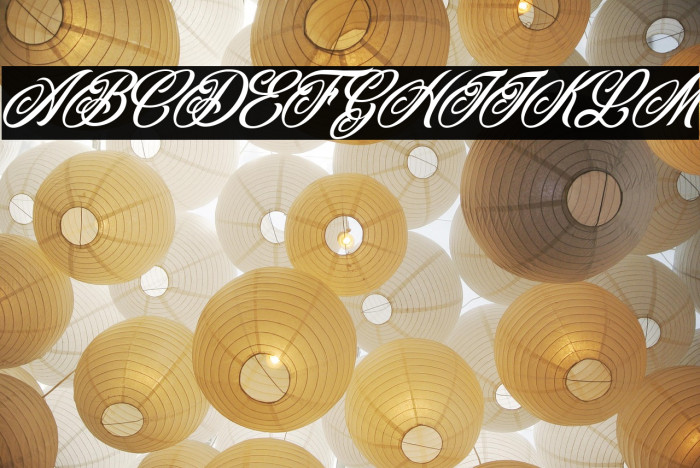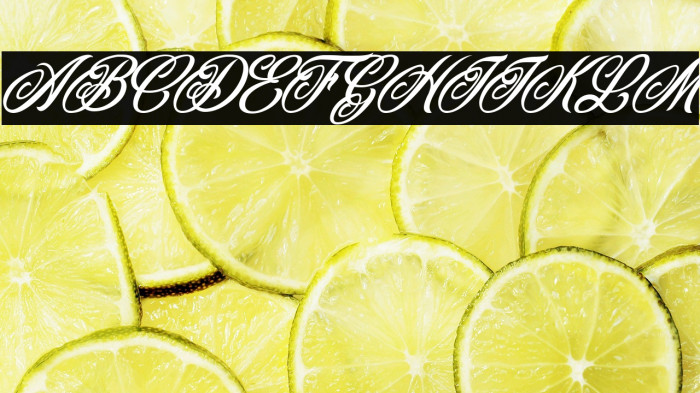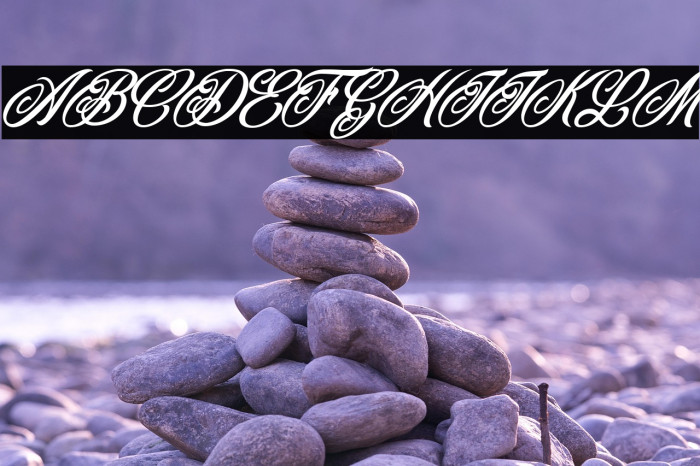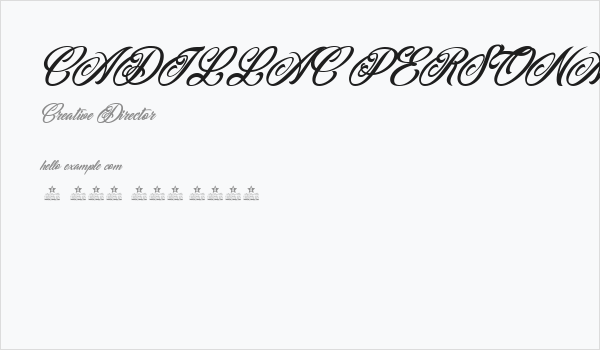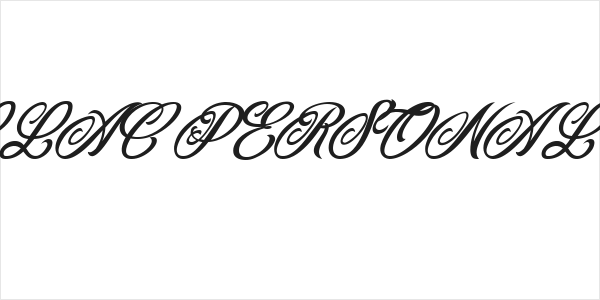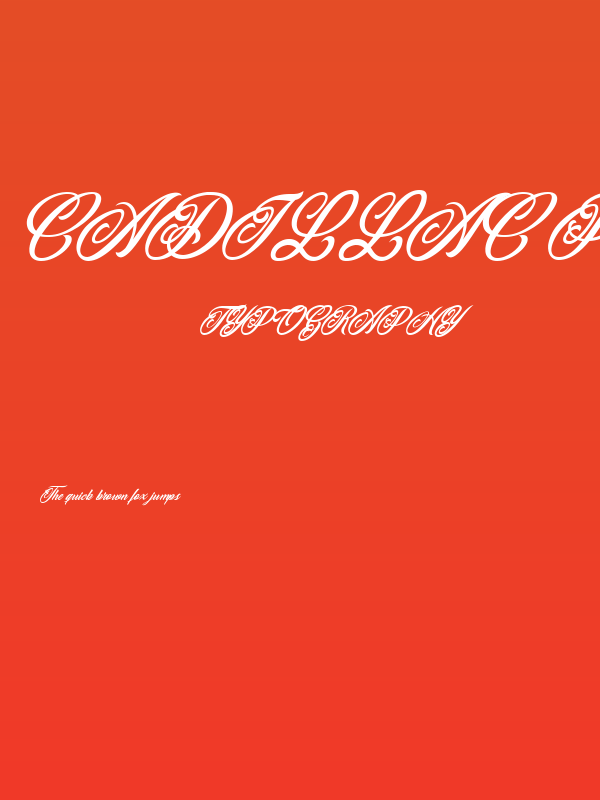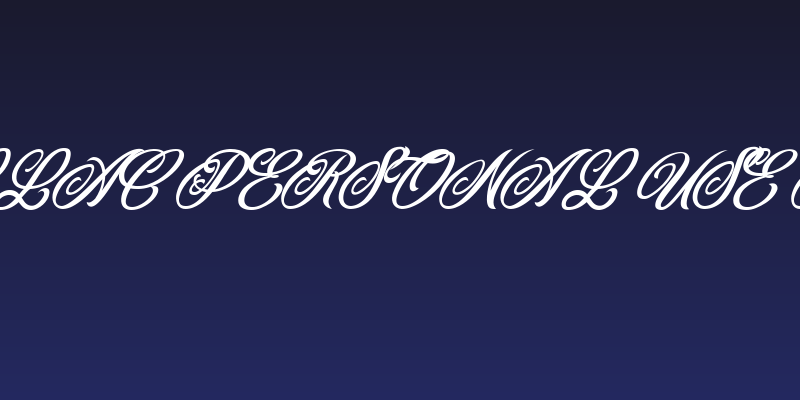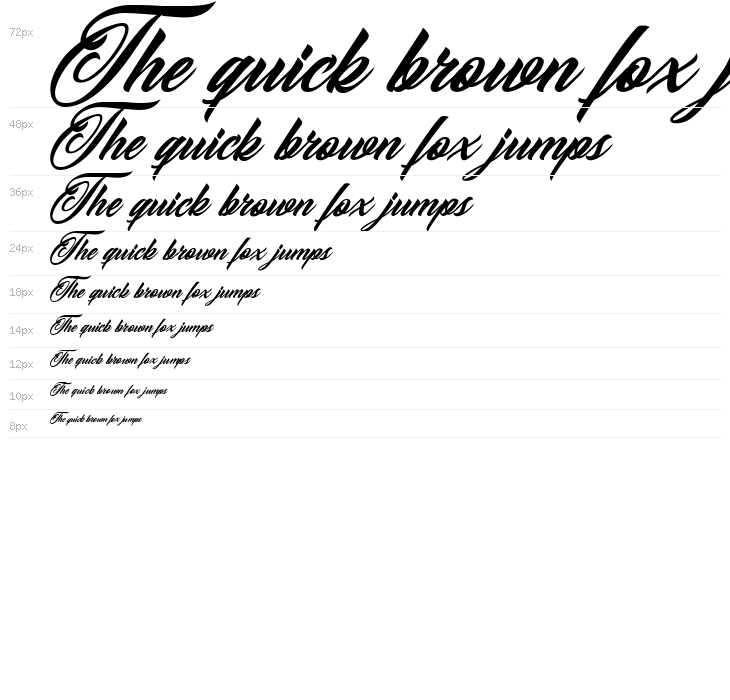
CADILLAC PERSONAL USE Italic Font
CADILLAC PERSONAL USE Italic Description
This elegant script font features a flowing, cursive style with intricate loops and swashes, giving it a sophisticated and luxurious appearance. The uppercase letters are particularly ornate, with elaborate flourishes that add a touch of grandeur. The lowercase letters maintain a consistent slant, enhancing the font's italic nature. The overall design is reminiscent of classic calligraphy, making it suitable for formal and decorative applications. The numerals and special characters are designed to match the ornate style of the alphabet, ensuring a cohesive look across all text elements.
| Proposed Projects | Ideal for wedding invitations, luxury branding, high-end product packaging, and elegant event signage. |